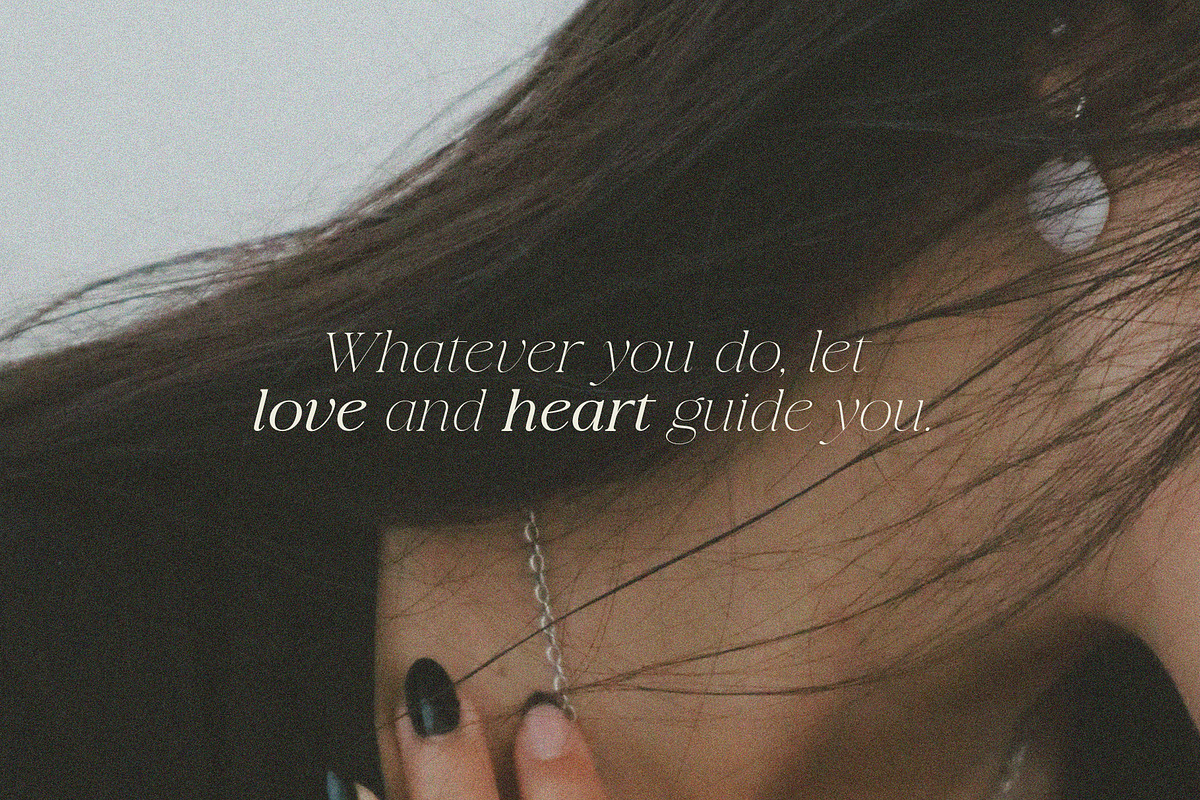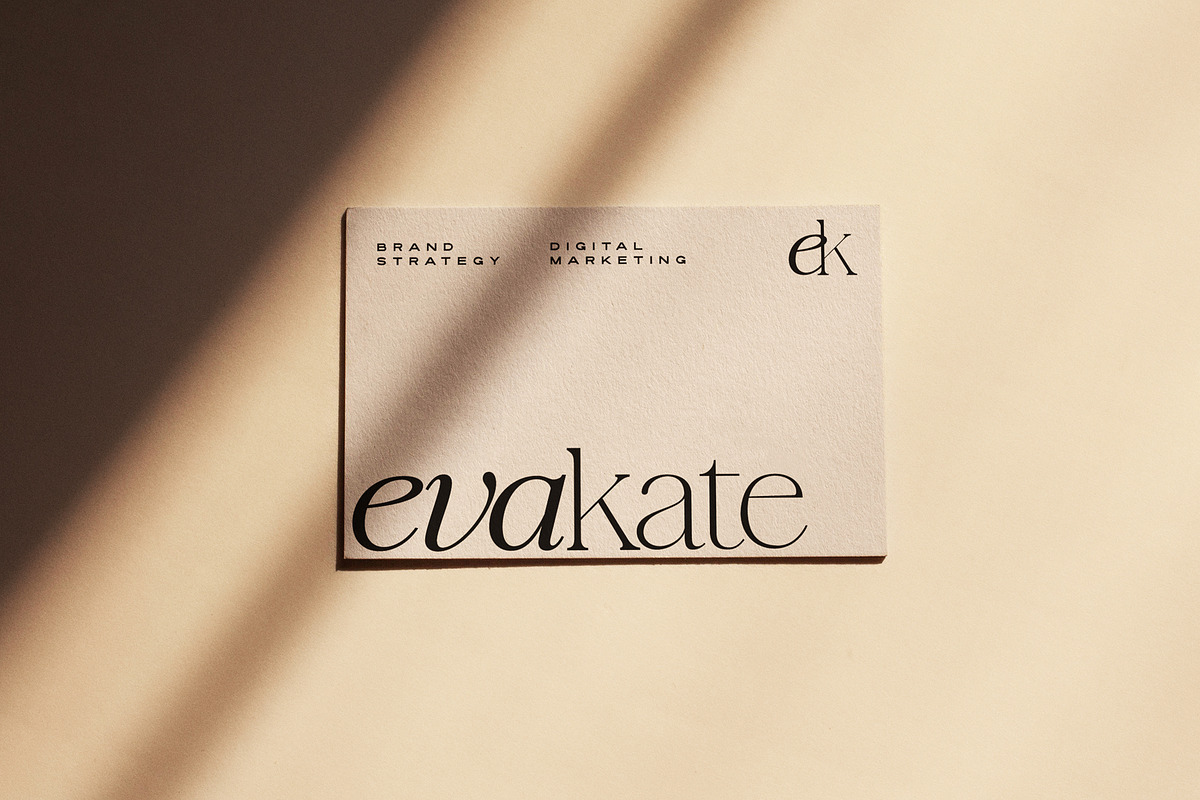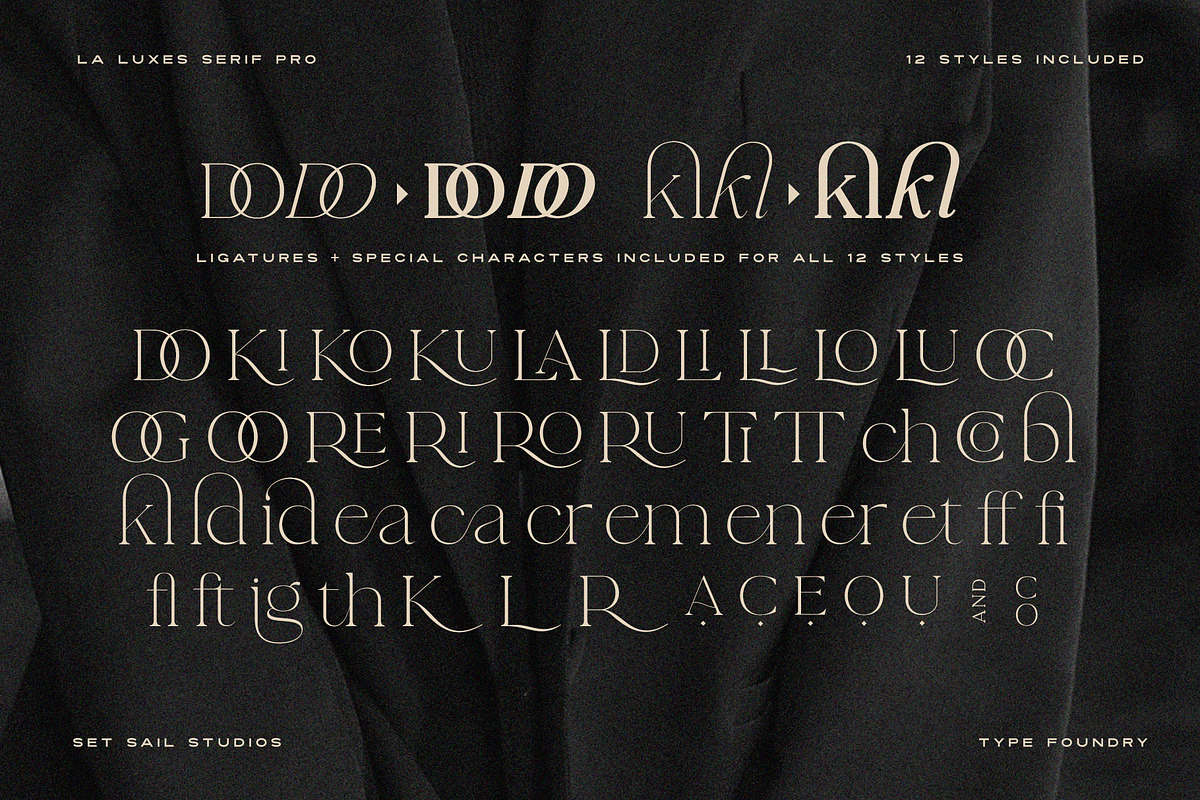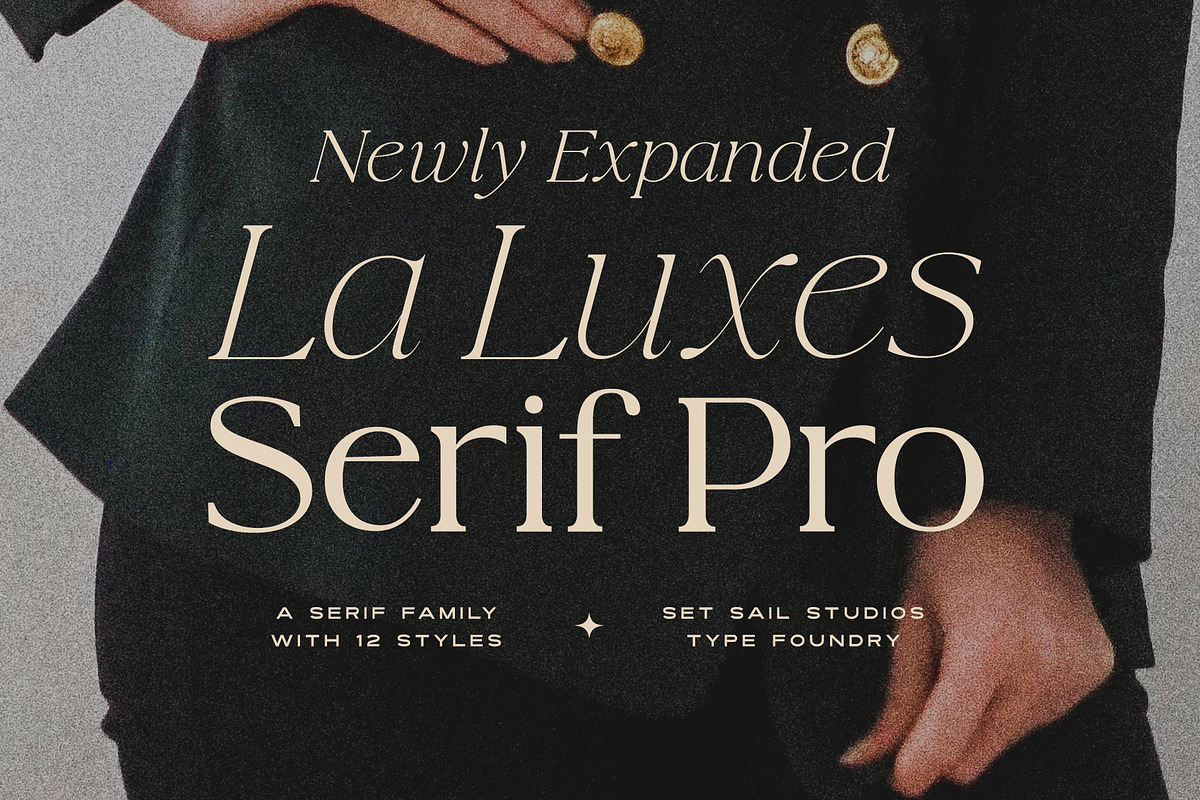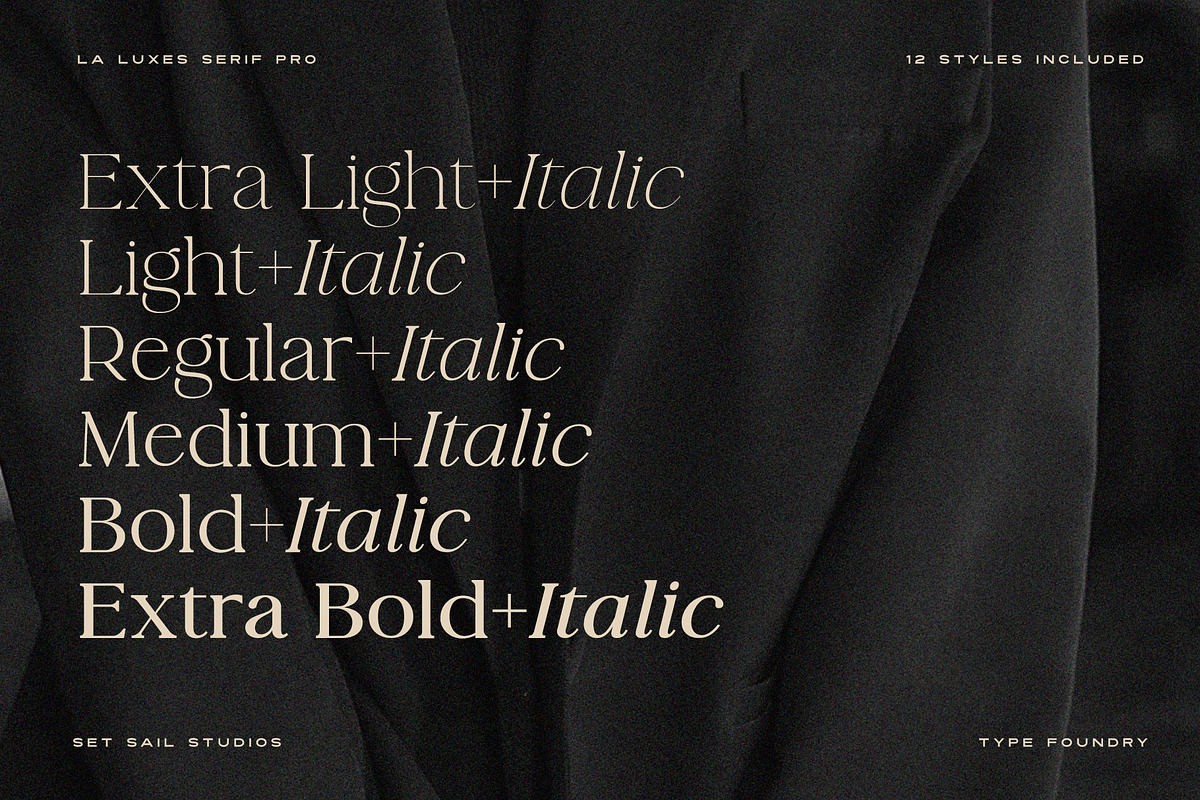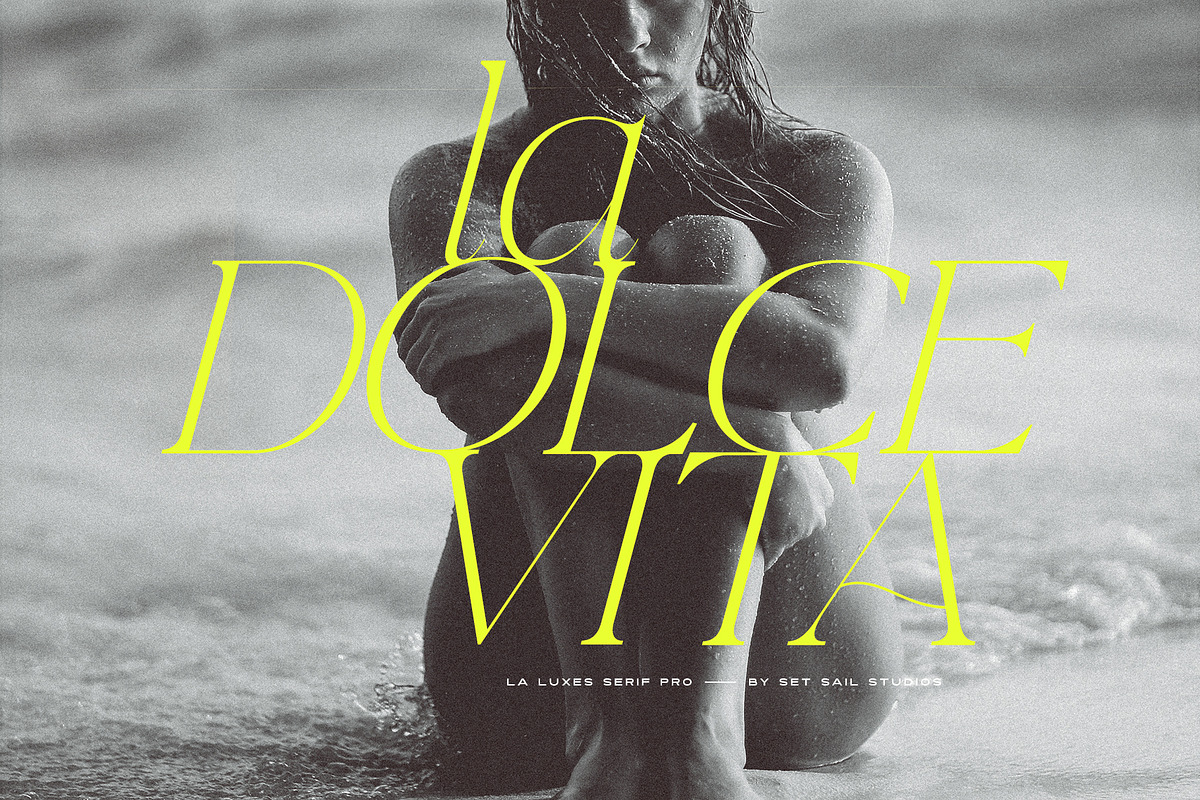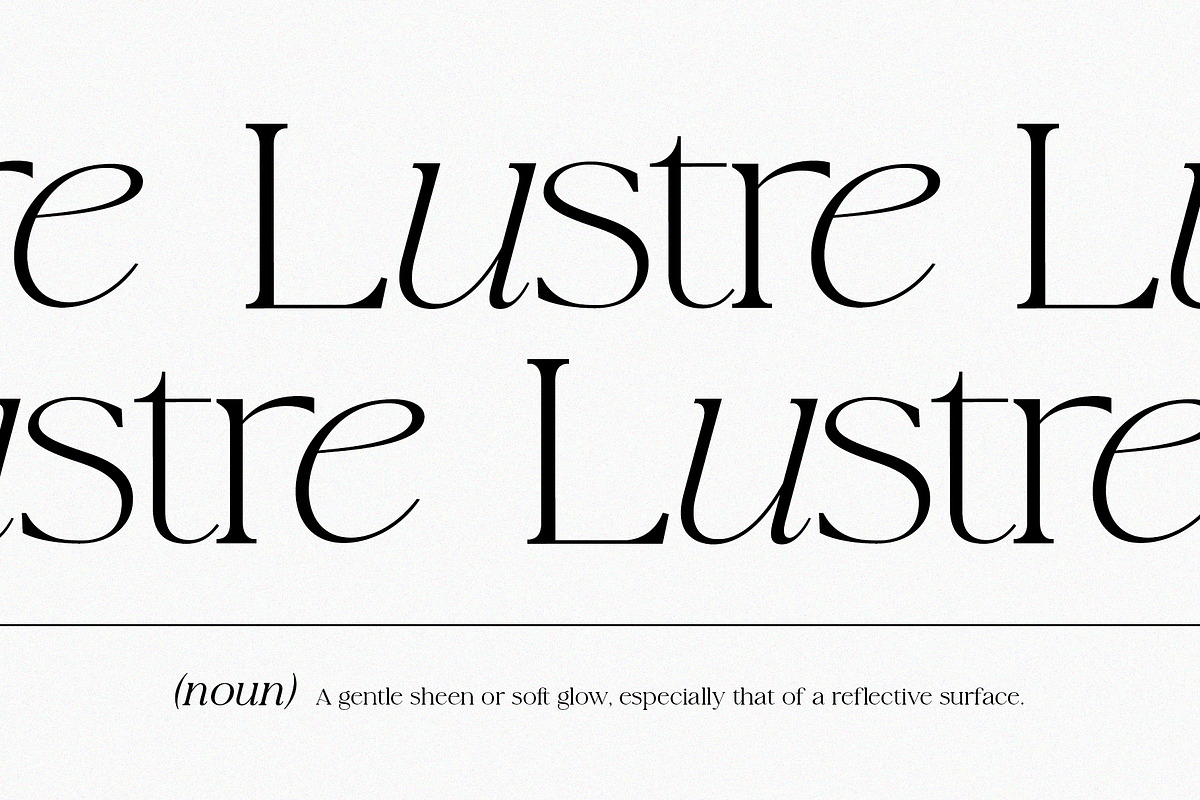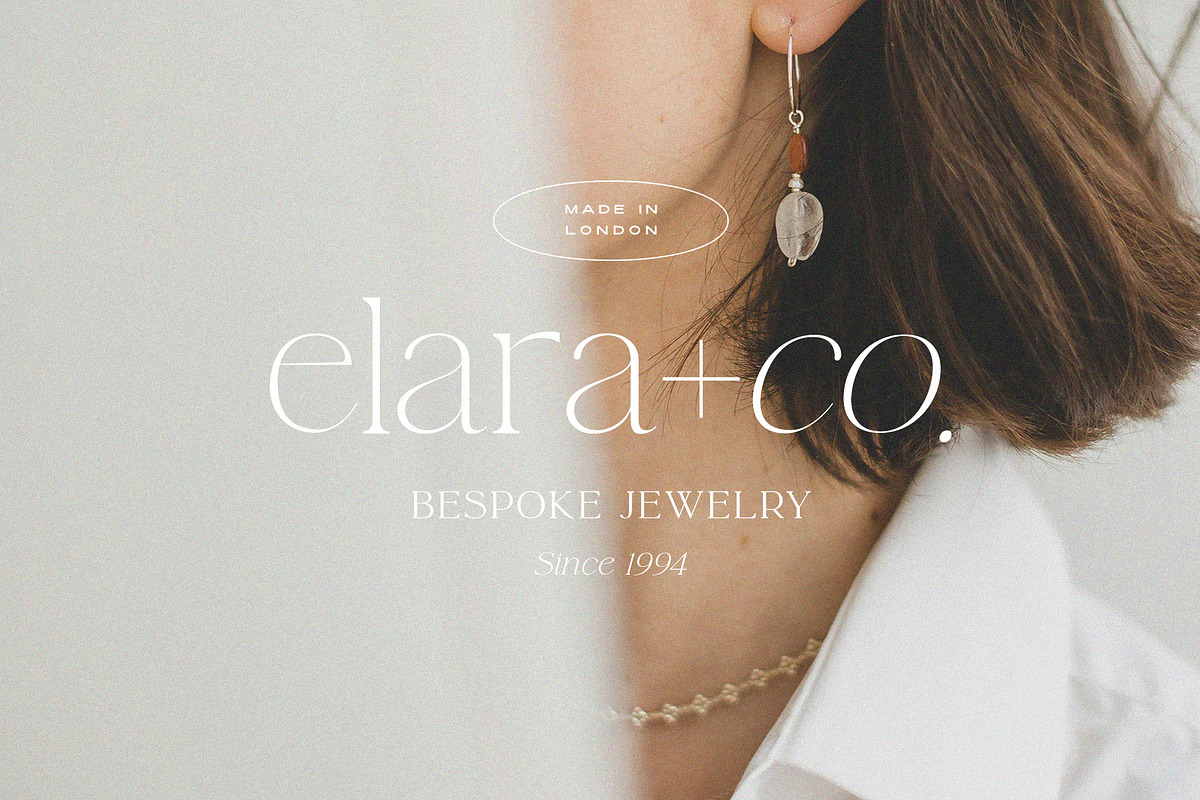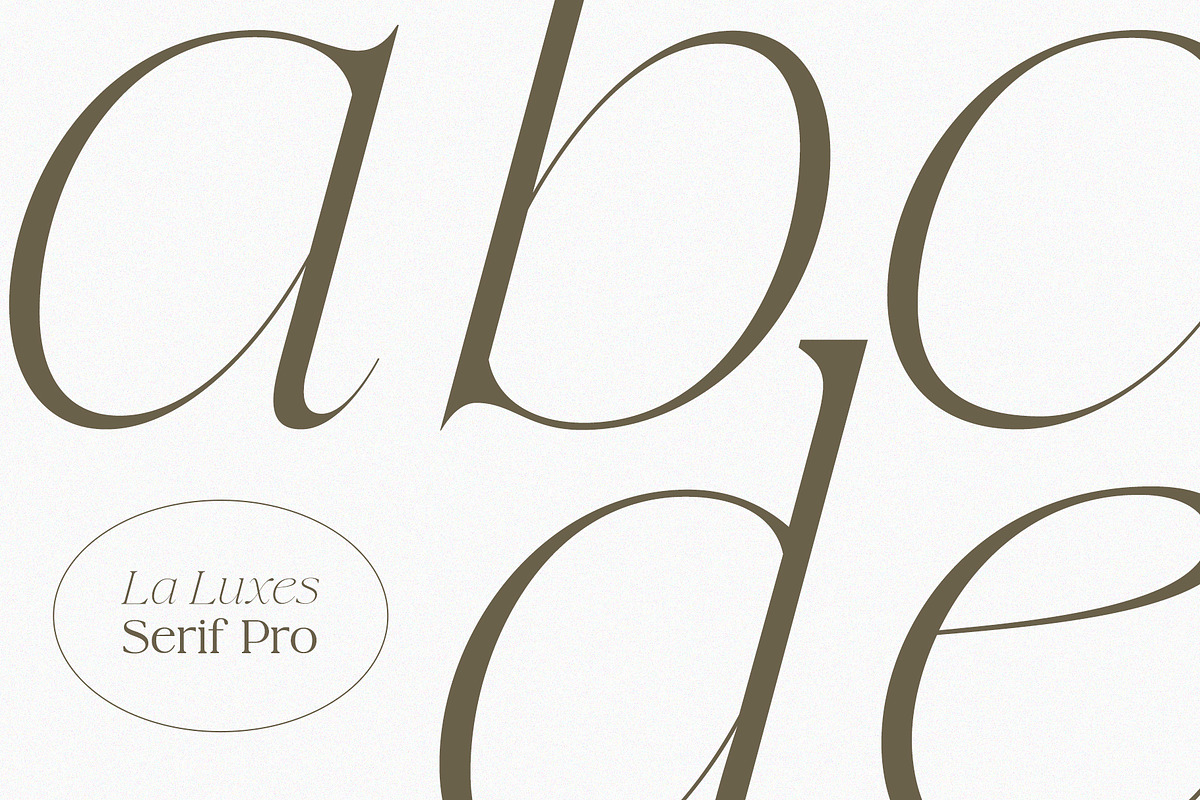
La Luxes Serif Pro 12 Font Family
Yep, my best selling Serif font just got even better! La Luxes Serif has been expanded to La Luxes Serif Pro—a full family of 12 fonts, including 6 different weights each with their own italic variation. This major update elevates the La Luxes Serif font to new levels of versatility, giving you boundless creative opportunities for everything from sophisticated logos to dynamic headlines and elegant branding.